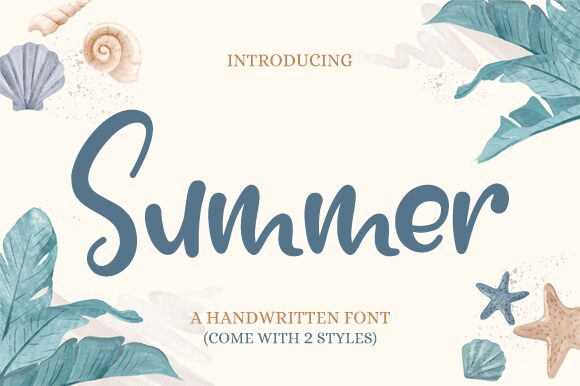
Summer
Summer font by Nirmala Creative is a free handwritten font that brings a breezy energy to your projects. Casual, flowing, and modern, the script font is perfect for designs that aim at expressing creativity and joy. Its enchanting letterpatterns help create a friendly environment where customers feel at ease.
With Summer's contemporary style, you can transform your social media posts, branding materials, advertisements and even invitations. Use it for stationery designs like business cards and traditional print materials like magazines.